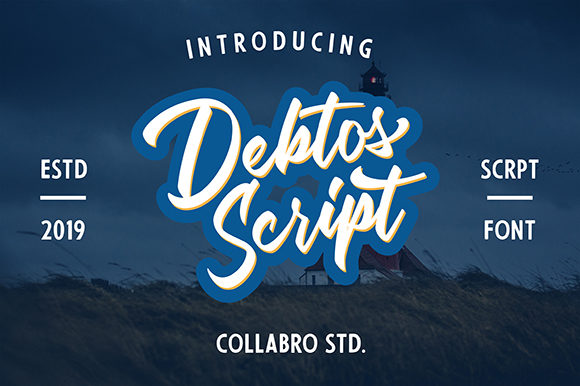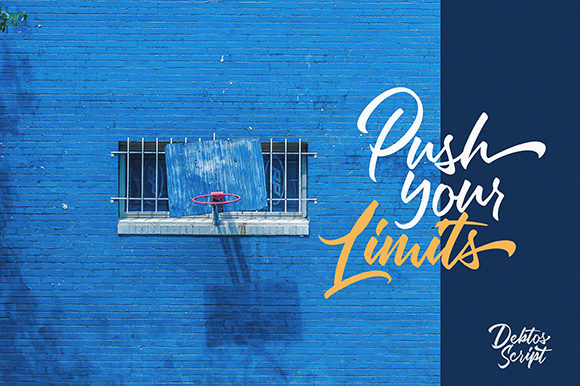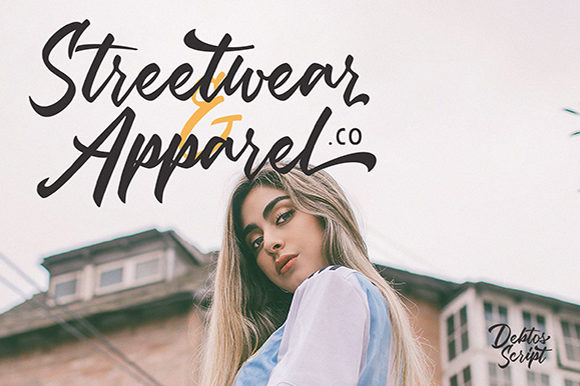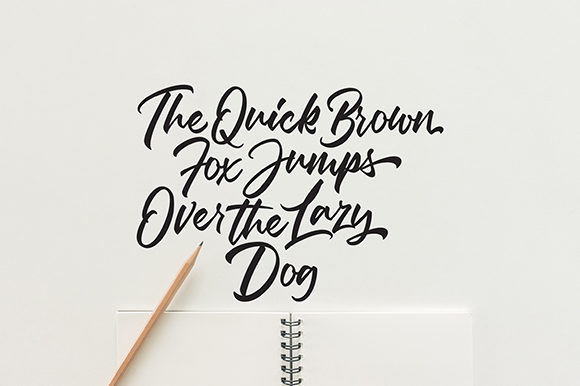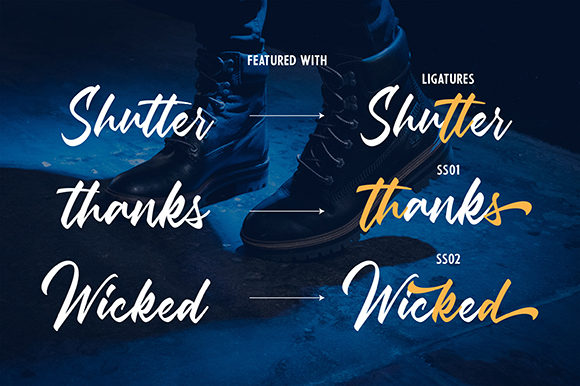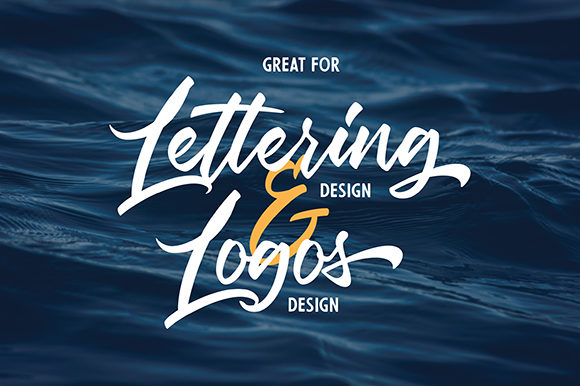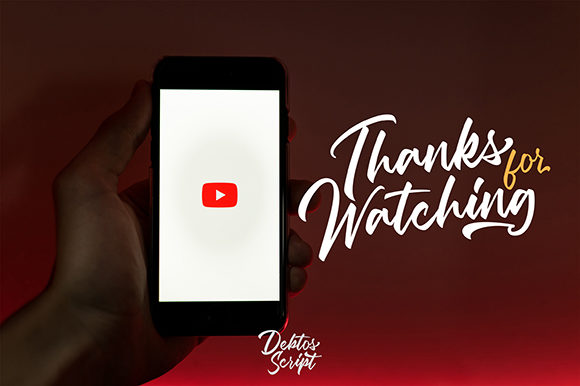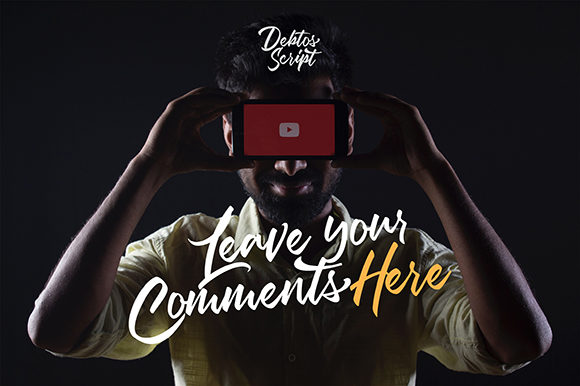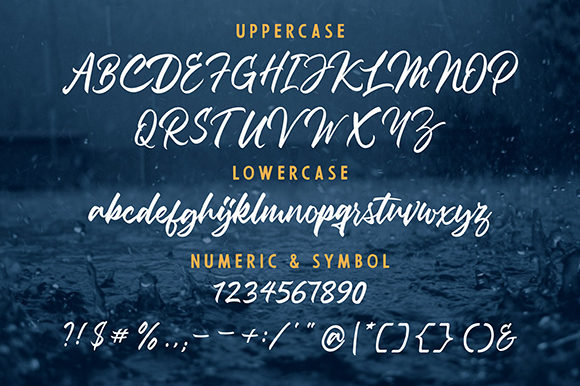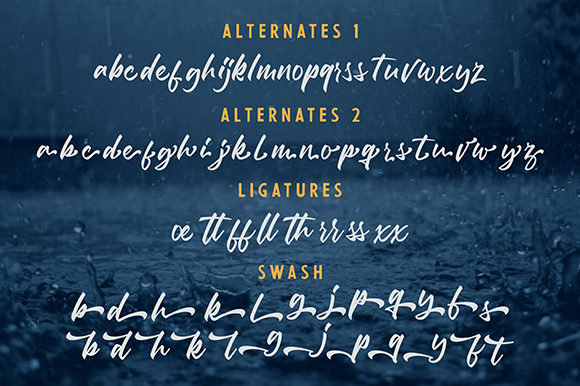
Debtos Script Font
About Debtos Script Font
The Debtos is an original hand-drawn font. It has an amazing handwritten look which will add some personal charm to your designs.
It’s perfect for adding vintage aesthetics to your logos, branding materials, t-shirts, prints, posters, and much more!